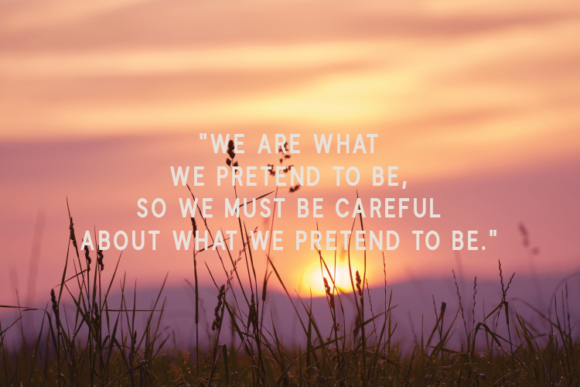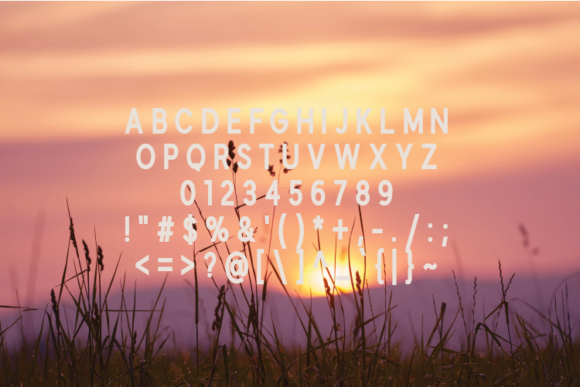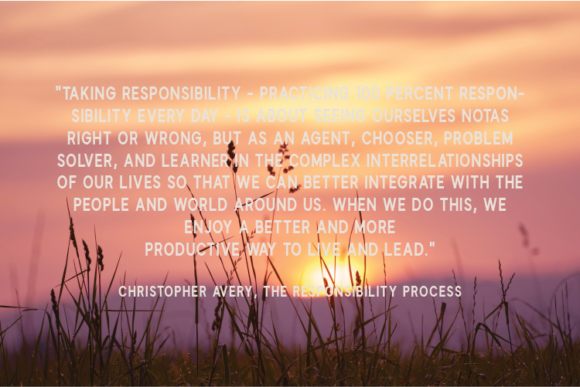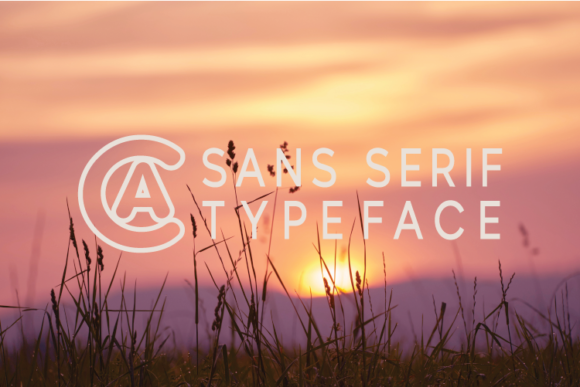
Introducing Cuteline Font: The Ultimate Modern Sans Serif Typeface
Are you a designer or crafter looking for a font that exudes modernity and class? Look no further than Cuteline Font! This extremely versatile typeface is perfect for a wide range of applications, from logos and weddings to invitations, quotes, advertisements, print, magazines, and more.
What is Cuteline Font?
Cuteline Font is a modern and classy sans serif typeface that is designed to make a statement. Its clean lines, elegant curves, and precise craftsmanship make it an ideal choice for designers and crafters who want to add a touch of sophistication to their work.
Key Features of Cuteline Font
• Modern and Classy Design: Cuteline Font boasts a sleek and contemporary design that is sure to turn heads. Its sans serif style gives it a clean and minimalist look that is perfect for modern designs.
• Extremely Versatile: Whether you’re working on a logo, wedding invitation, or magazine, Cuteline Font is the perfect choice. Its versatility makes it suitable for a wide range of applications.
• Perfect for Logos: Cuteline Font is ideal for logos that require a modern and professional look. Its unique design ensures that your logo will stand out from the crowd.
• Weddings and Invitations: Add a touch of elegance to your wedding invitations, save-the-date cards, and other wedding stationery with Cuteline Font.
• Quotes and Advertisements: Use Cuteline Font to add a modern twist to your quotes and advertisements. Its clean design ensures that your message will be conveyed clearly and effectively.
Why Choose Cuteline Font?
So, why should you choose Cuteline Font for your design projects? Here are just a few reasons:
• Unique Design: Cuteline Font has a unique design that sets it apart from other sans serif typefaces. Its elegant curves and precise craftsmanship make it a standout choice.
• Easy to Read: Despite its modern design, Cuteline Font is incredibly easy to read. This makes it perfect for body text, headings, and titles.
• Highly Versatile: As mentioned earlier, Cuteline Font is extremely versatile. It can be used for a wide range of applications, from print to digital media.
How to Use Cuteline Font
• Pair it with Other Fonts: Cuteline Font pairs well with other sans serif typefaces. Try pairing it with a serif font for a unique contrast.
• Experiment with Font Sizes: Cuteline Font looks great in a variety of font sizes. Experiment with different sizes to find the perfect fit for your design.
• Use it for Headings and Titles: Cuteline Font is perfect for headings and titles. Use it to add a touch of elegance to your design.
In conclusion, Cuteline Font is a modern and classy sans serif typeface that is perfect for designers and crafters. Its unique design, versatility, and ease of use make it an ideal choice for a wide range of applications. Whether you’re working on a logo, wedding invitation, or magazine, Cuteline Font is sure to impress.